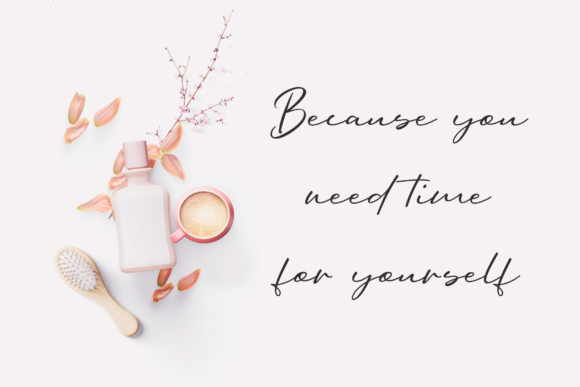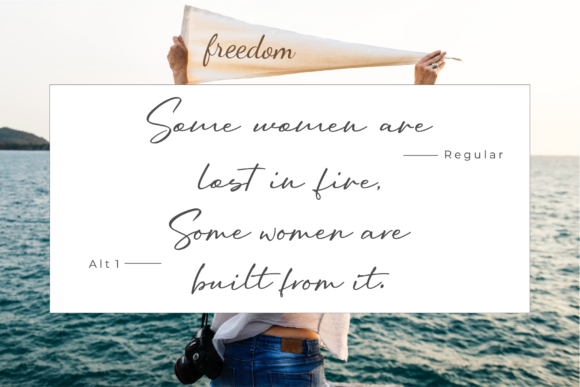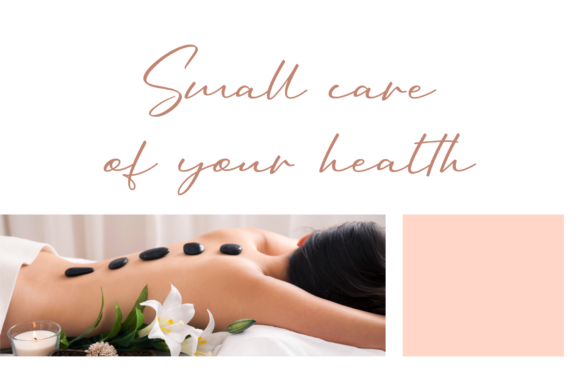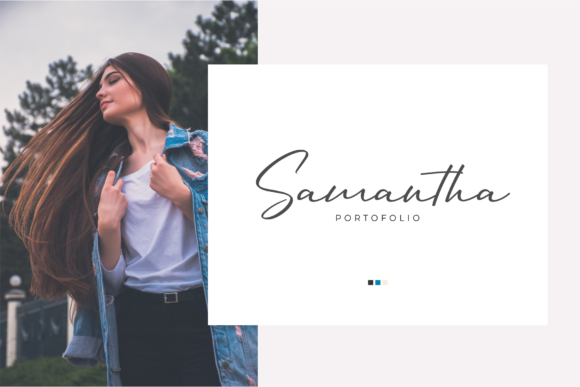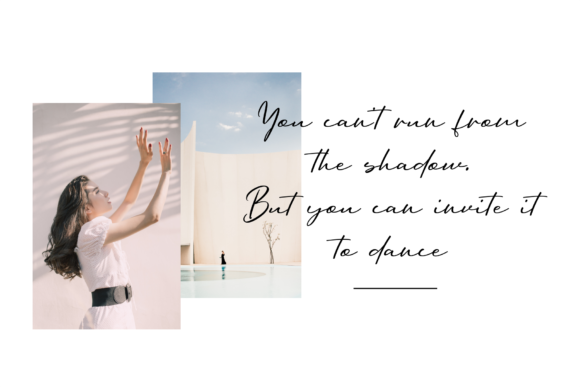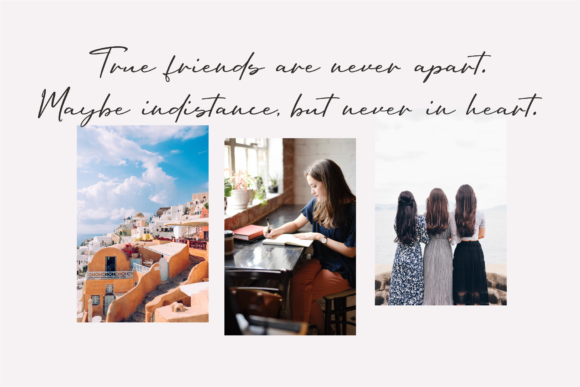
Introduction to Oriflame Script Font
As a designer, have you ever found yourself in the midst of a creative project, struggling to find the perfect font to bring your vision to life? The words flow effortlessly onto the page, but the right typography seems to be the missing piece of the puzzle. This is where the Oriflame Script Font comes in – a beautiful, elegant handwritten font that exudes confidence and courage.
With its dynamic movement and high-quality design, the Oriflame Script Font is a valuable resource for any designer looking to add a touch of sophistication to their work. Whether you’re creating a logo, printed quote, or wedding invitation, this font is sure to make a lasting impression. And the best part? It’s available for free download, making it an accessible design resource for creatives of all levels.
Key Features of Oriflame Script Font
- High-quality, elegant script font suitable for creative projects, such as invitations, wedding cards, and other design resources.
- Comes in a transparent background, allowing for easy integration into various design elements.
- Designed with a unique, flowing style that adds a touch of sophistication to any creative project.
Honest Review: Oriflame Script Font
As a designer, I’ve had the chance to work with a wide range of fonts, and I must say that the Oriflame Script Font has been a pleasant surprise. The font is a high quality design resource that can add a touch of elegance to any creative project.
What works well is the script’s versatility – it can be used for both personal and professional projects, and its beautiful cursive lines make it perfect for quotes, titles, or even headings. I also appreciate the transparent background option, which allows for seamless integration with any design element.
- ✨ High quality design that looks great on both digital and print media
- ✨ Easy to use, with a clear and simple font style
However, there are a few limitations to keep in mind. The font may not be suitable for projects that require a bold or sans-serif font, and it can be a bit difficult to read in small sizes.
Overall, I’m impressed with the Oriflame Script Font, and I would definitely recommend it to designers looking for a high-quality, creative font. It’s a great addition to any design resource library, and I’m sure it will become a go-to choice for many designers.
The Oriflame Script Font is a high-quality, elegant script font perfect for creative projects. It’s available for free download and can be easily integrated into various design software.
The Oriflame Script Font is ideal for:
Wedding invitations, stationery, and event materials.
Brand logos, packaging, and marketing materials.
Photography captions, quotes, and artistic projects.